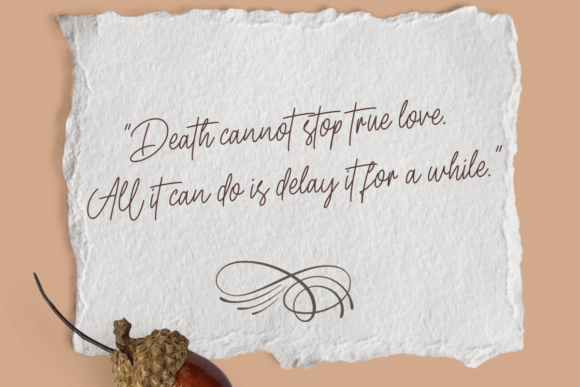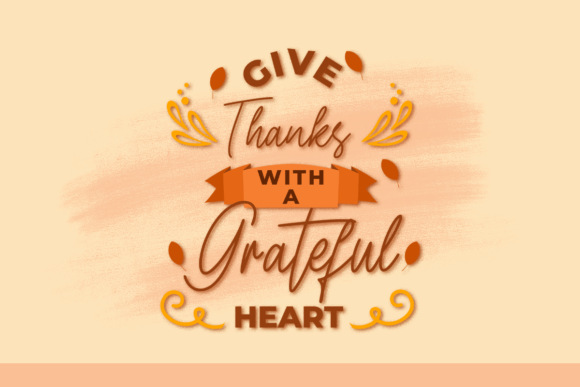
Doria Signature Font
db-ku.com - Script & Handwritten -- Doria Signature is distinct and fashionable script font. It is perfectly suited for all quotes, greeting card, business card, wedding invitations, logos, lettering or t-shirt design materials! This font is PUA encoded which means you can access all of the glyphs and swashes with ease.